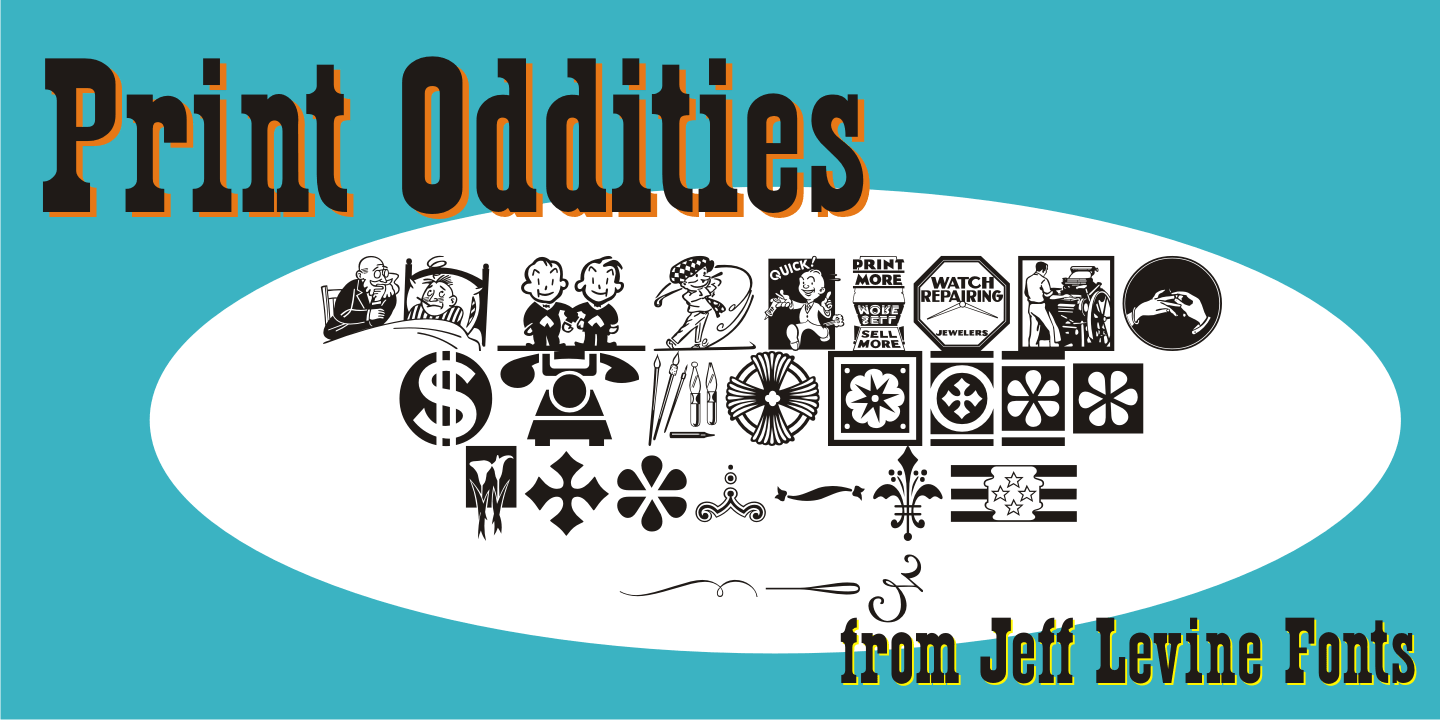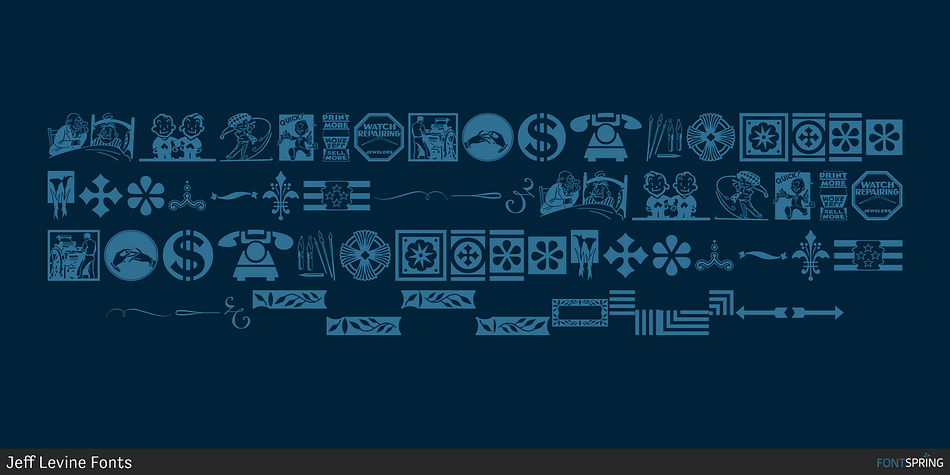
Print Oddities JNL Regular
Print Oddities JNL is a dingbat font published by Jeff Levine Fonts.
Print Oddities JNL gathers various cartoons, embellishments, spot illustrations, border elements and arrows into one nostalgic collection; all re-drawn from vintage source material.